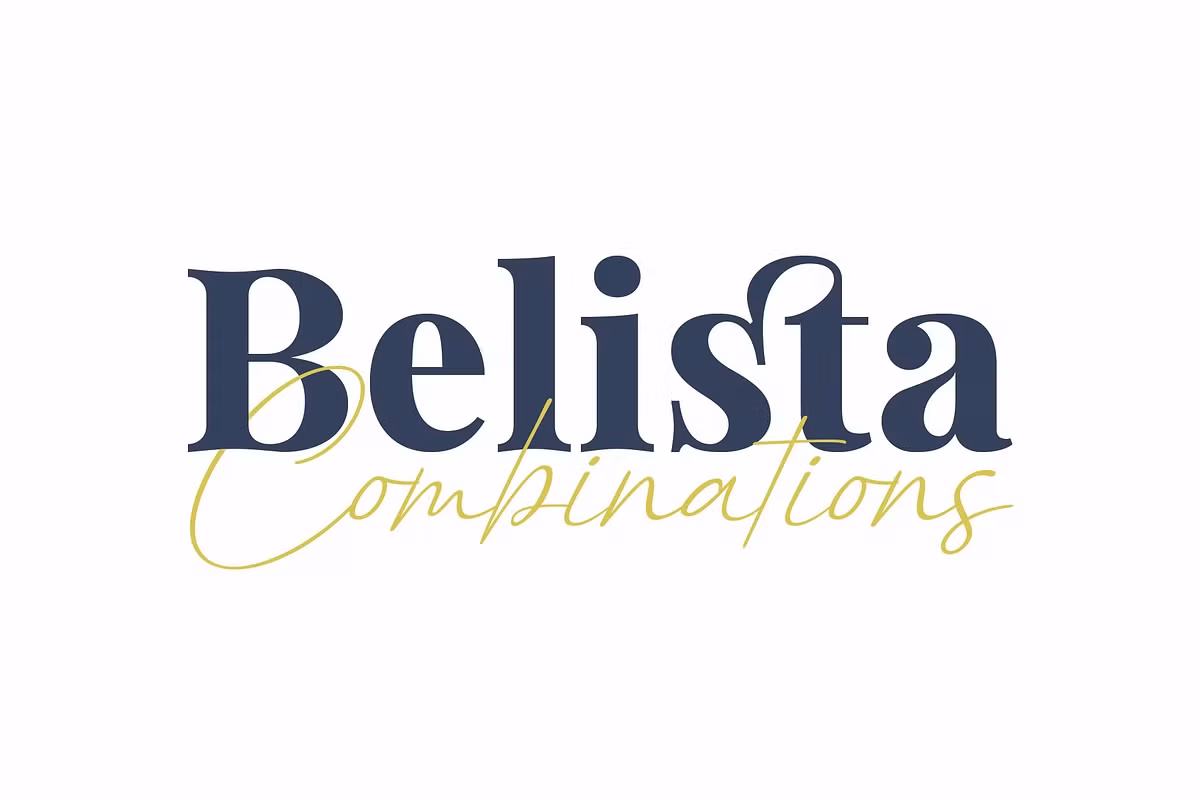
Belista – Font Combination Free Download is an elegant and well-balanced font duo designed to bring harmony, contrast, and visual appeal to your creative projects. Please note, you are required to purchase this font for commercial use. It is available for free download for testing and personal projects only.
Featuring a refined serif and a stylish script, Belista is perfect for wedding invitations, branding, logo design, editorial layouts, packaging, and social media graphics. The combination allows for effortless pairing between headlines and supporting text, giving your designs a polished and cohesive look.